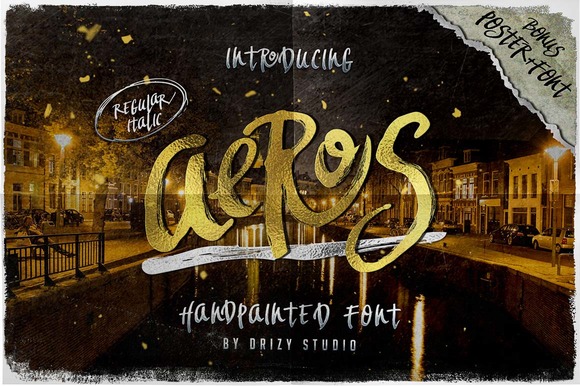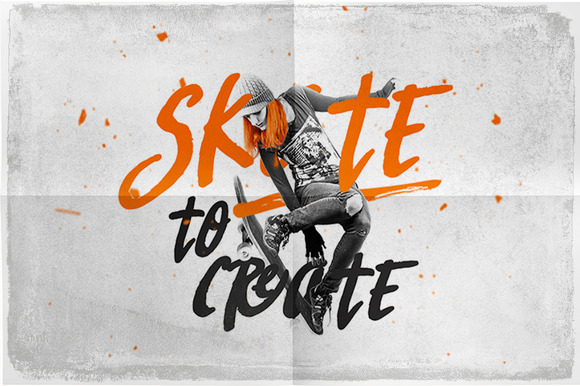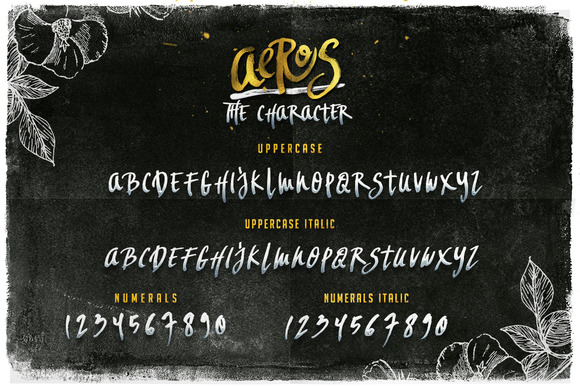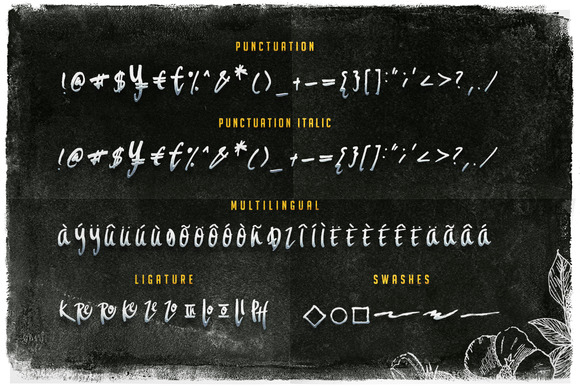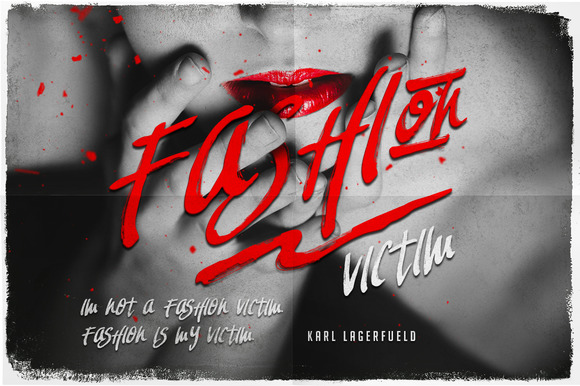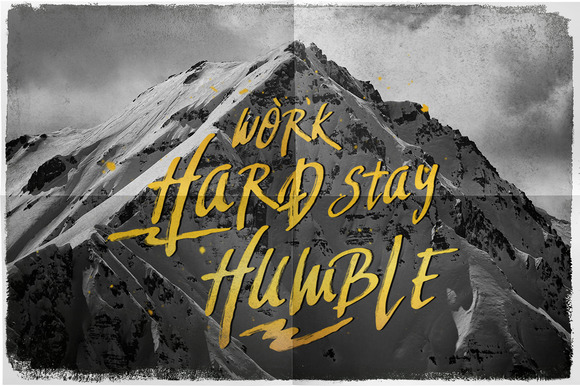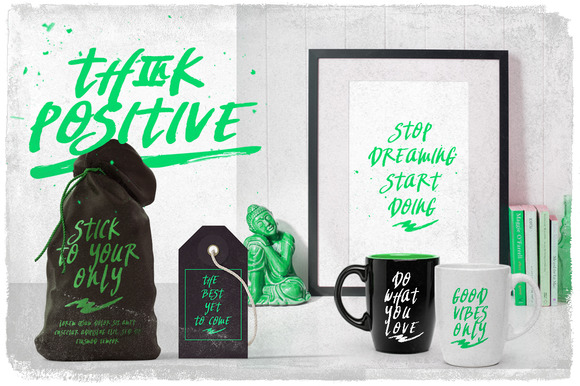
Aeros Font
About Aeros Font
Aeros is a handpainted font created by Drizy.
This stunning font has a rough, grunge look & feel and comes with 2 weights:
Aeros Regular
Aeros Italic